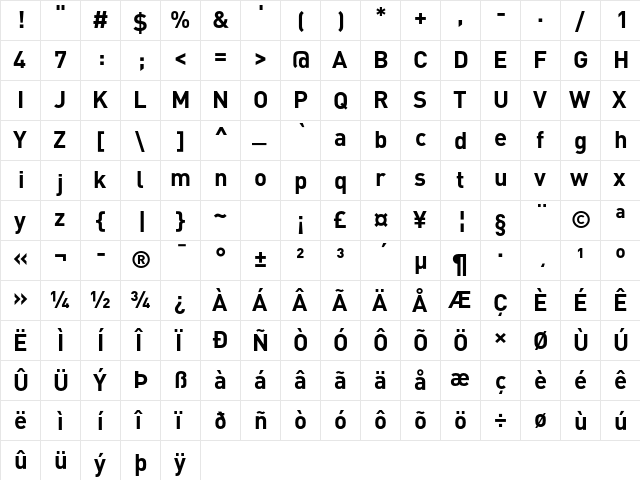
DINPro-Bold Regular
| Foundry | FSI Fonts und Software GmbH |
| Designer | Albert-Jan Pool |
Design Context for DINPro-Bold Typeface
DINPro-Bold takes a measured approach to typography — its balanced proportions and neutral character make it a reliable workhorse for both digital and print work. The heavy weight commands attention and anchors typographic hierarchies.